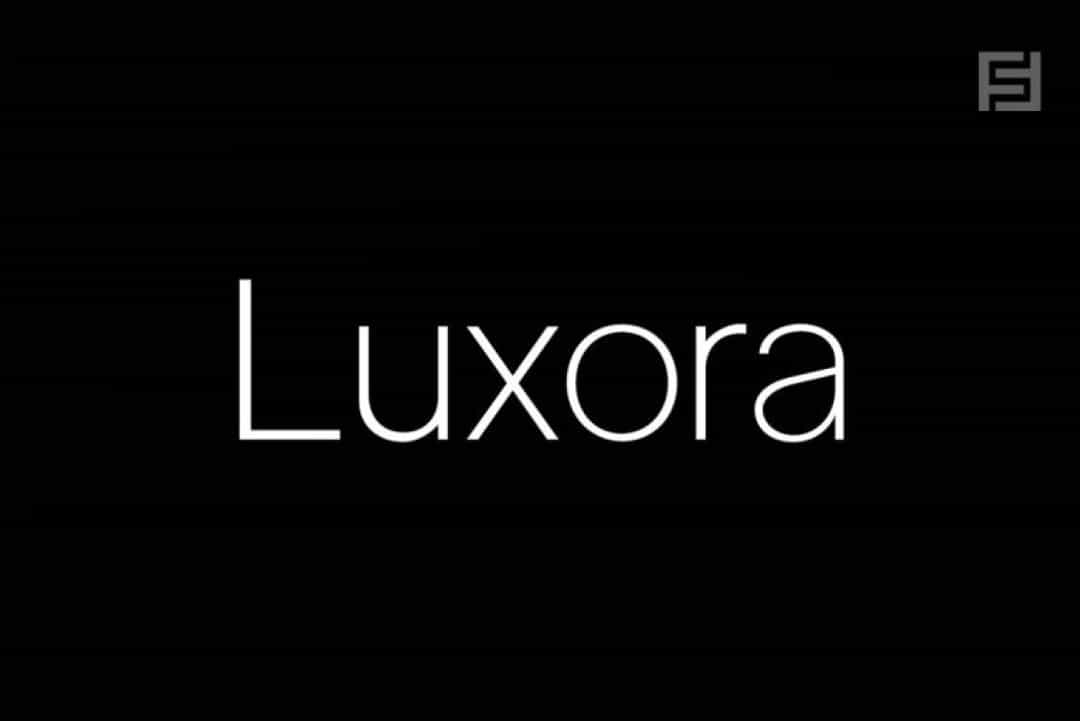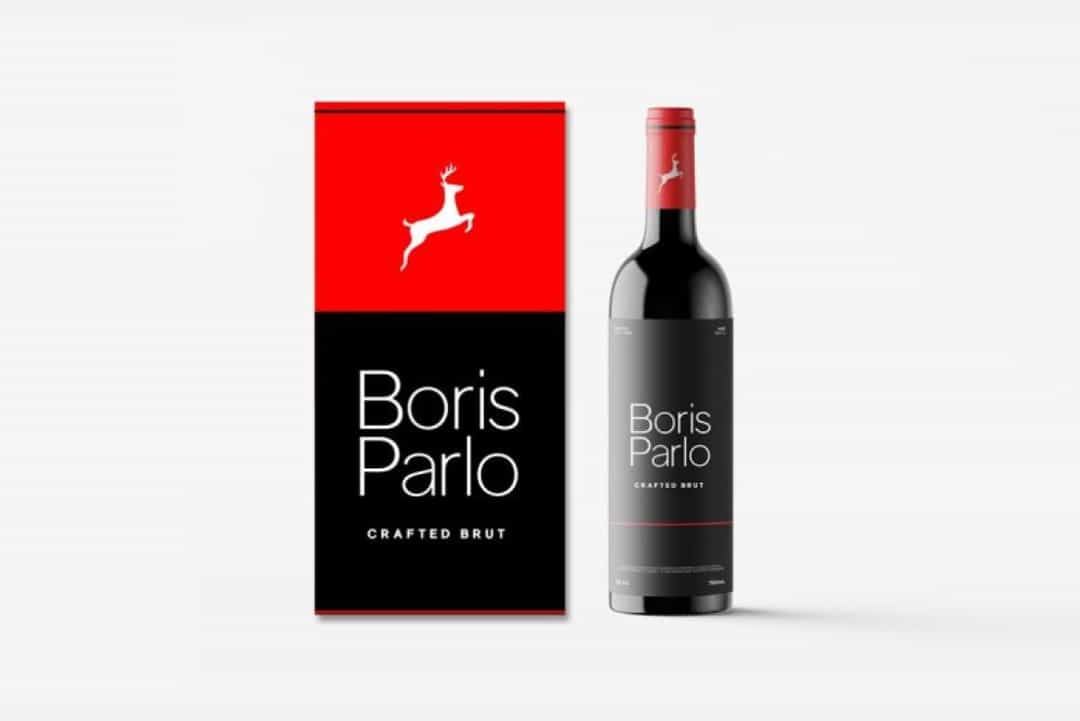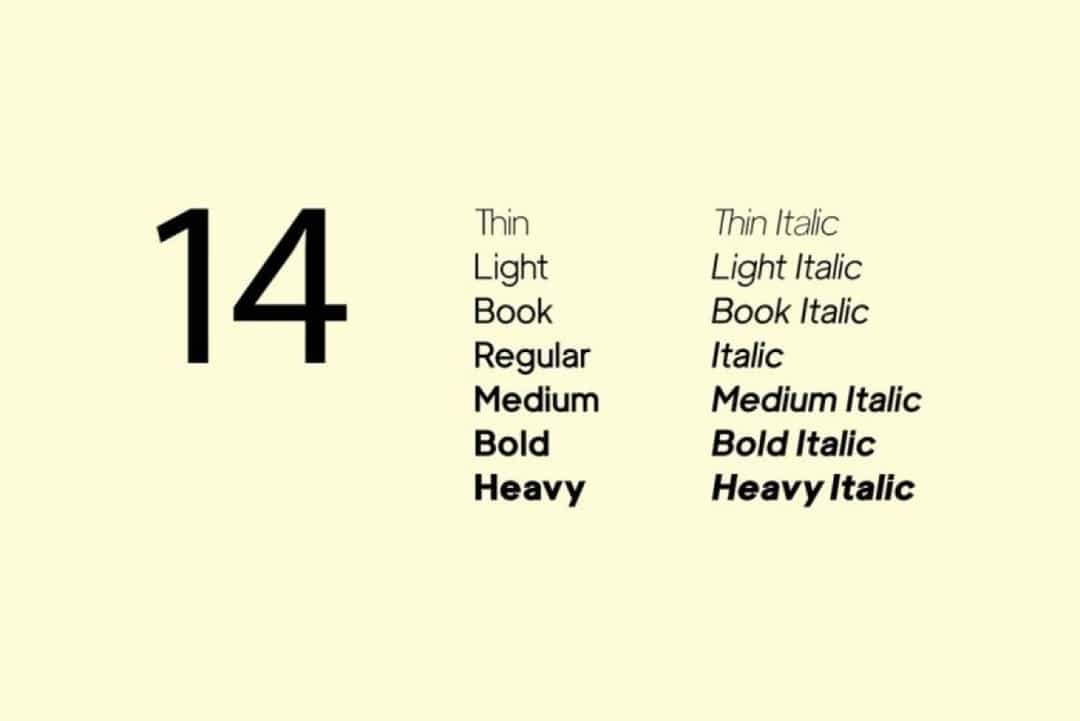
Luxora Grotesk is a quite simple and functional font which was developed with all the necessary attributes of a great sans serif font. Created by hand from OpenType features with extended language support containing Western European and Central European sets for every weight, in total 329 characters!